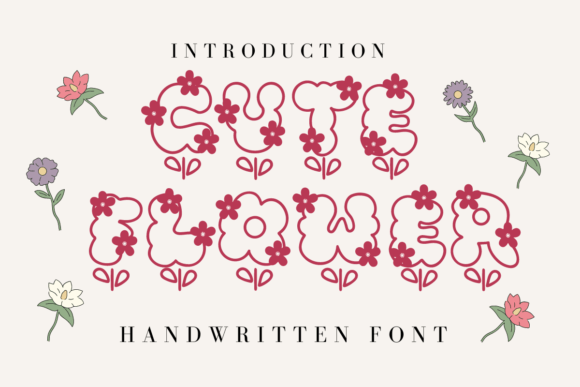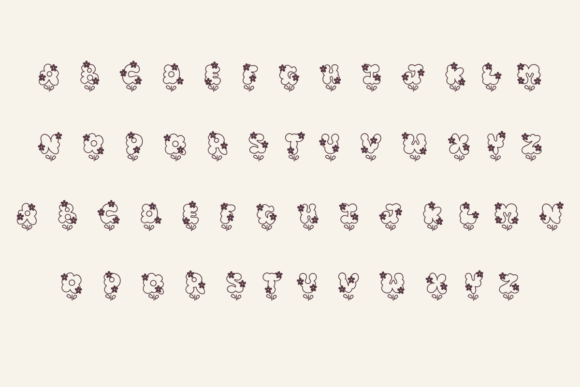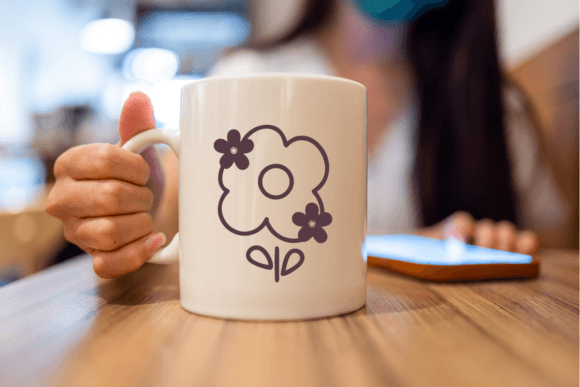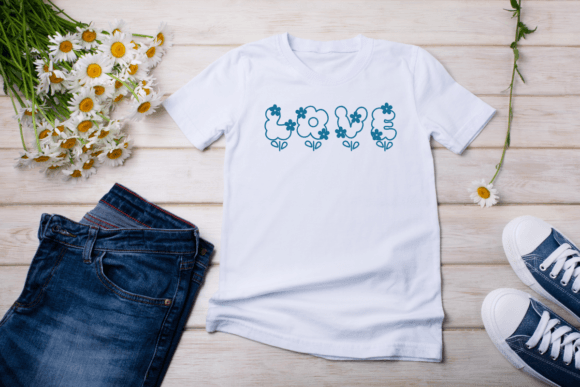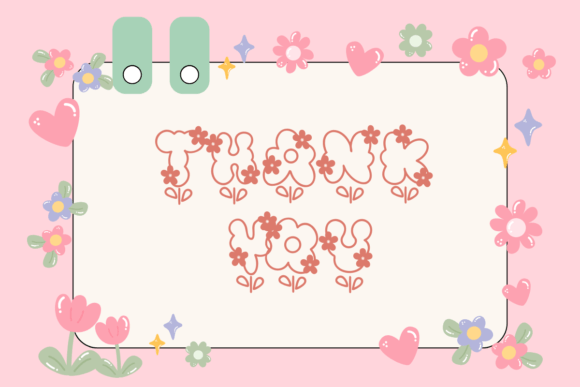
The Perfect Petal of Typography: Cute Flower Font
Enter the Cute Flower Font, a charming and whimsical addition to your typographic toolkit. This adorable font is designed to bring a touch of nature’s beauty to your words, with each letter adorned with tiny flowers. Whether you’re creating a wedding invitation, a children’s book, or a social media post, the Cute Flower Font is sure to add a playful and charming touch. For designers looking to add a personal and creative touch to their work, the Cute Flower Font is a valuable asset that’s sure to delight.
Cute Flower Font Key Features
- Unique Characteristics: The font features a distinctive, hand-drawn design with intricate floral patterns, making it perfect for creating whimsical and playful designs.
Cute Flower Font Review
I recently had the chance to work with the Cute Flower Font, and I have to say, it’s a unique and playful addition to any design project ✨. The font is perfect for projects that require a touch of whimsy and charm. Its quirky style and intricate details make it stand out from more traditional fonts.
The Cute Flower Font has a lot of potential, especially when used in contexts like:
- Children’s book covers and illustrations
- Floral-themed websites and social media graphics
However, I do have a few reservations about using the Cute Flower Font ⚠️. One of the main limitations is its readability in smaller text sizes. The intricate details and flourishes can make it difficult to read at smaller font sizes, which may limit its use in certain applications.
Overall, I think the Cute Flower Font is a great choice for projects that require a touch of personality and whimsy. While it may have some limitations, its unique style and charm make it a valuable addition to any designer’s toolkit.
Tips for Getting the Most Out of Cute Flower Font
Use Cute Flower Font for designs that require a playful and whimsical touch, such as children’s party invitations, wedding decorations, and social media graphics.
Combine Cute Flower Font with other fonts to create a unique and eye-catching design.
Experiment with different font sizes, colors, and settings to achieve the desired effect.
Cute Flower Font is commonly used for:
Children’s party invitations and decorations
Social media graphics and ads
Wedding decorations and invitations
Brand logos and identity designs